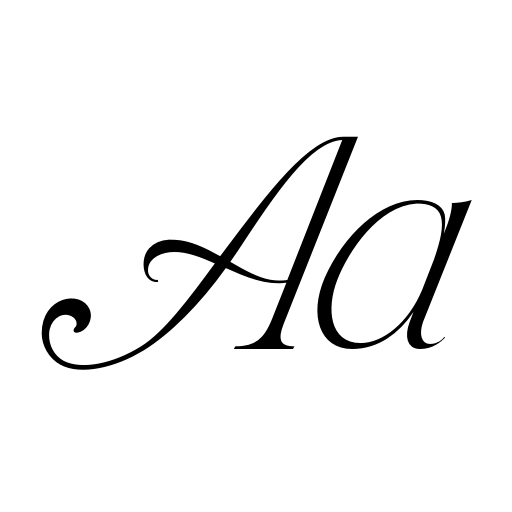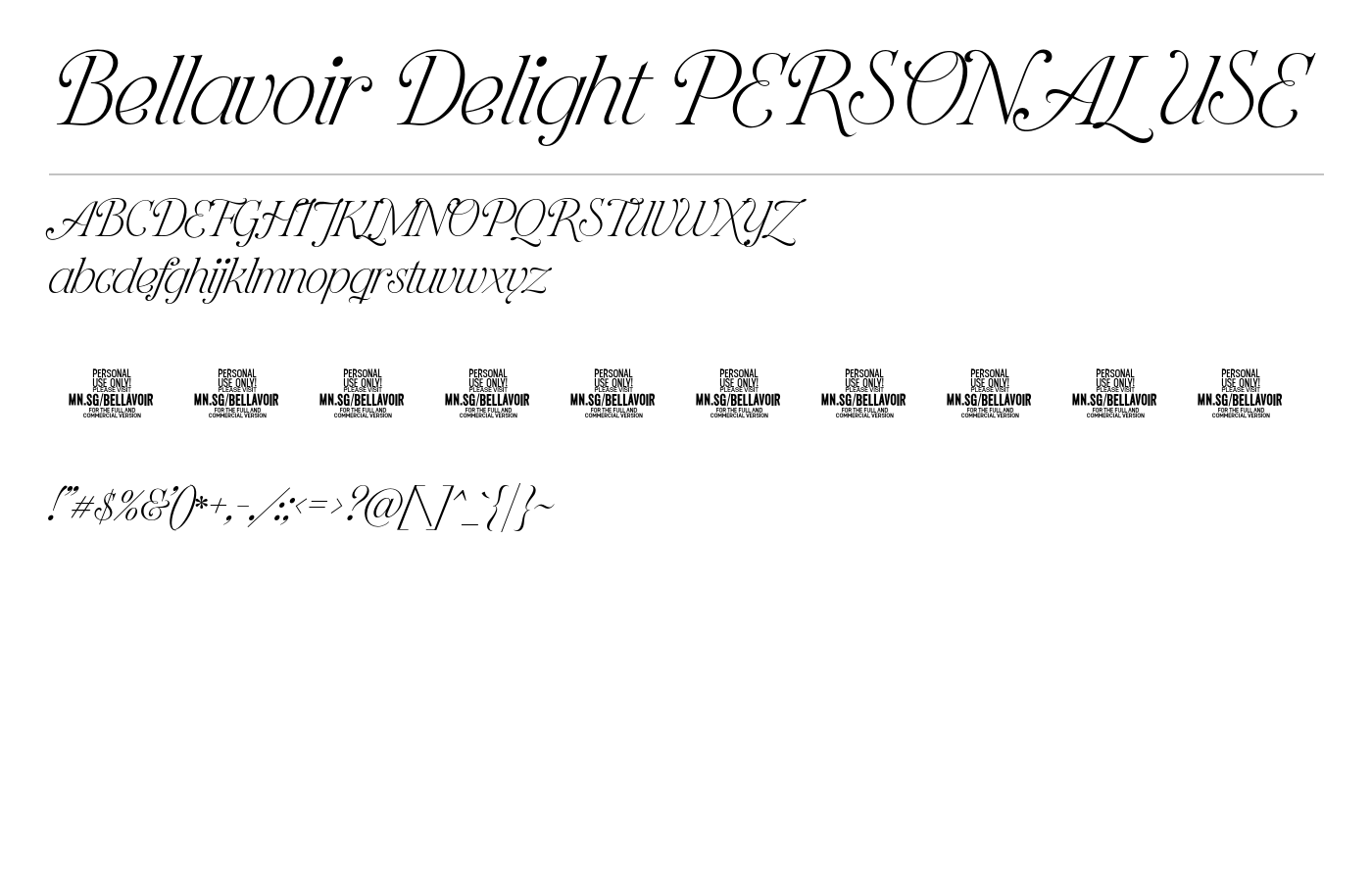
Bellavoir Delight is an elegant serif script font with a delicate, calligraphic style characterized by thin, high-contrast strokes and graceful, flowing letterforms. Its refined and sophisticated look makes it ideal for luxury branding, wedding invitations, and upscale editorial headlines where a touch of classic beauty and charm is desired. This font works best in large sizes to showcase its intricate details and subtle flourishes.
Bellavoir Delight PERSONAL USE Font
About Bellavoir Delight PERSONAL USE Font